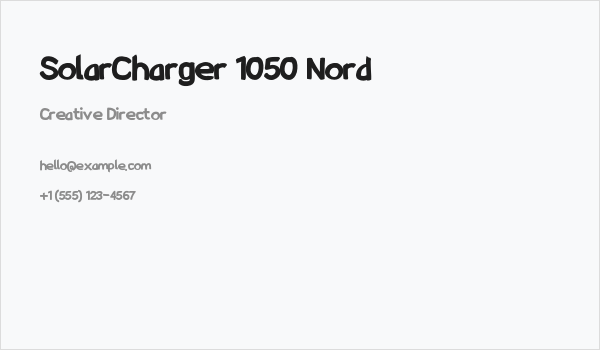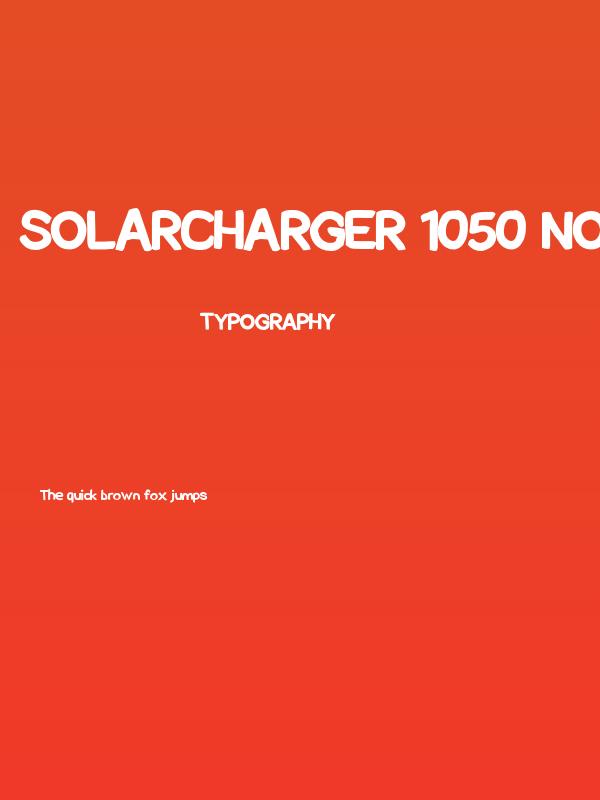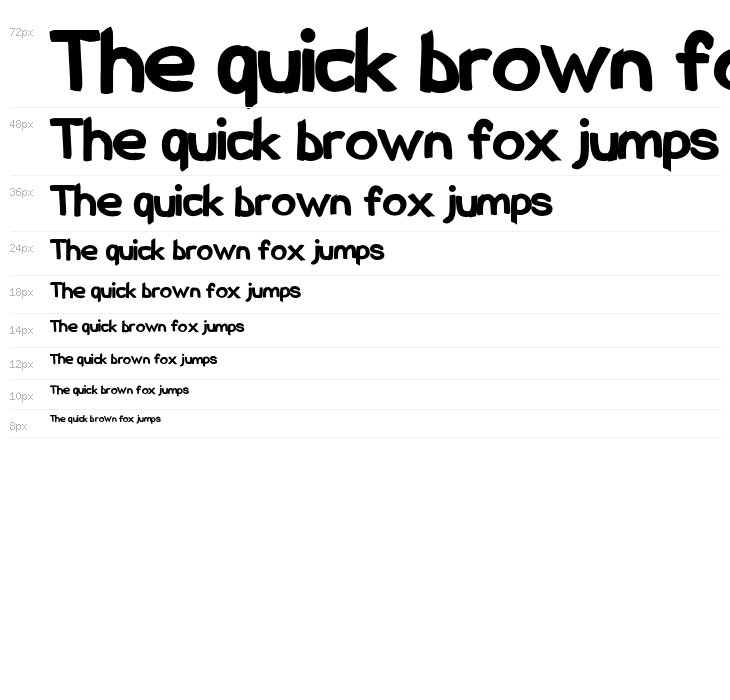
SolarCharger 1050 Nord Font
SolarCharger 1050 Nord Description
This font features a bold and playful design with rounded edges and a slightly irregular shape, giving it a hand-drawn appearance. The characters are thick and substantial, providing a strong visual impact. The uppercase and lowercase letters maintain a consistent style, with the lowercase letters slightly smaller in height. The numbers are equally bold and maintain the playful aesthetic. Special characters are included and match the overall style, adding versatility to the font. This font is ideal for projects that require a fun and informal touch.
| Overall Style | Playful, Informal |
| Proposed Projects | Ideal for children's books, playful branding, posters, and casual invitations. |